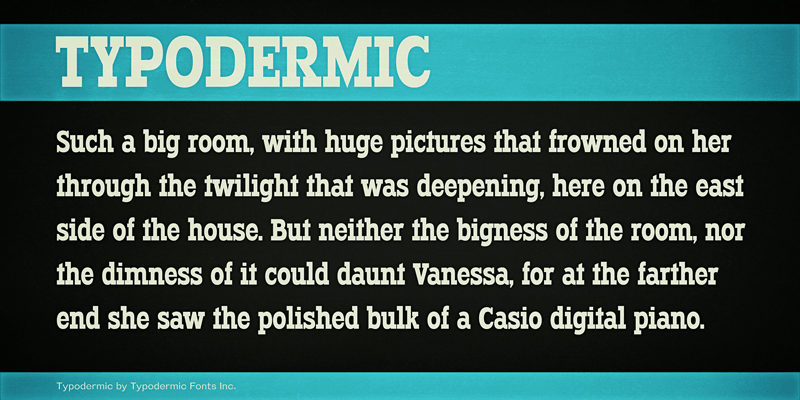
Typodermic is a nonsense-free, blood-and-guts industrial slab-serif with faithfulness, heart and soul. This font includes a license that allows free commercial use: sometimes referred to as a desktop license. This allows you to install the font on a computer and use it to create posters, web graphics, game graphics, t-shirts, videos, signs, logos and more. Read the license agreement for details. If you'd like to embed this font in an app, ebook, on the web or anything that's not covered by the desktop license agreement, visit the link below. You'll find distributors who offer different types of licenses or you can contact me for help. http://typodermicfonts.com/typodermic-the-font/ |